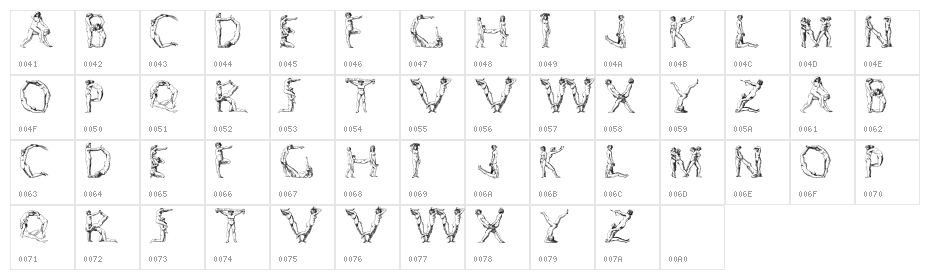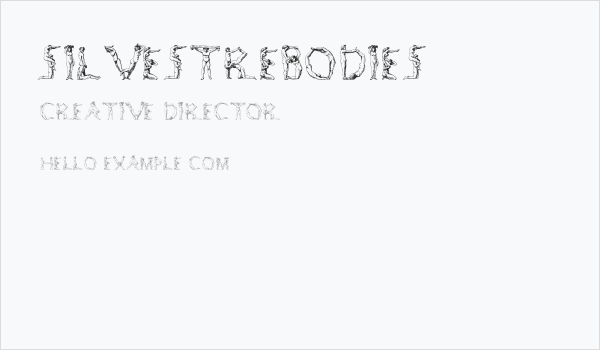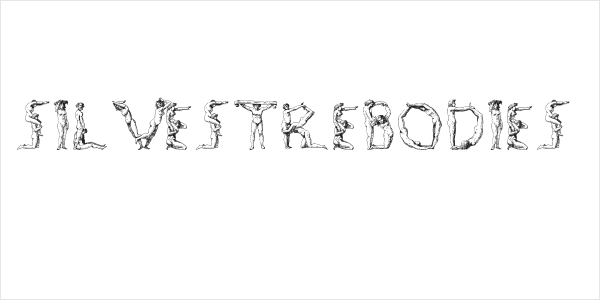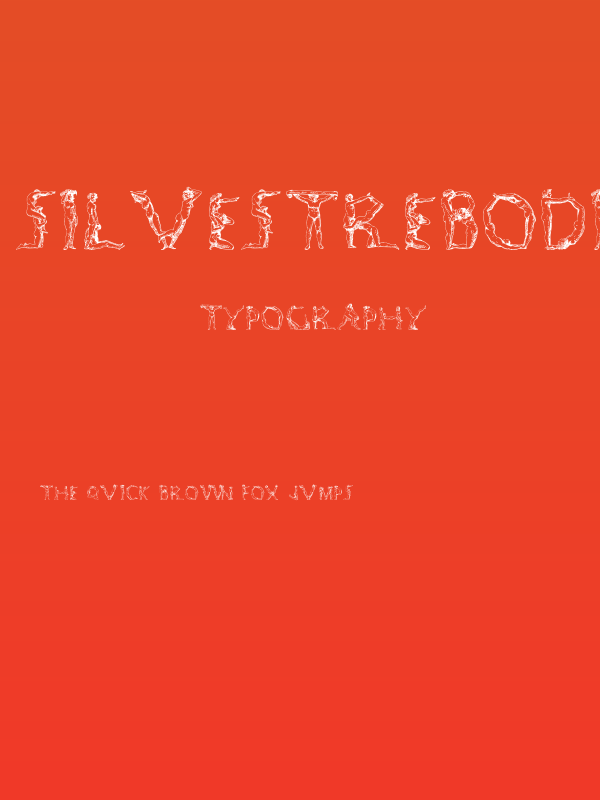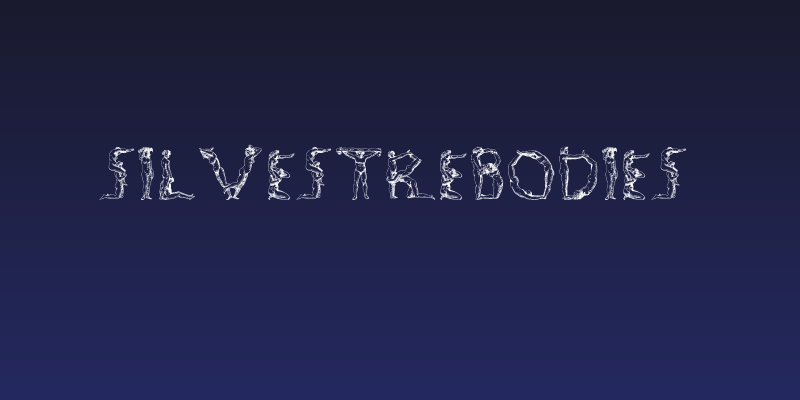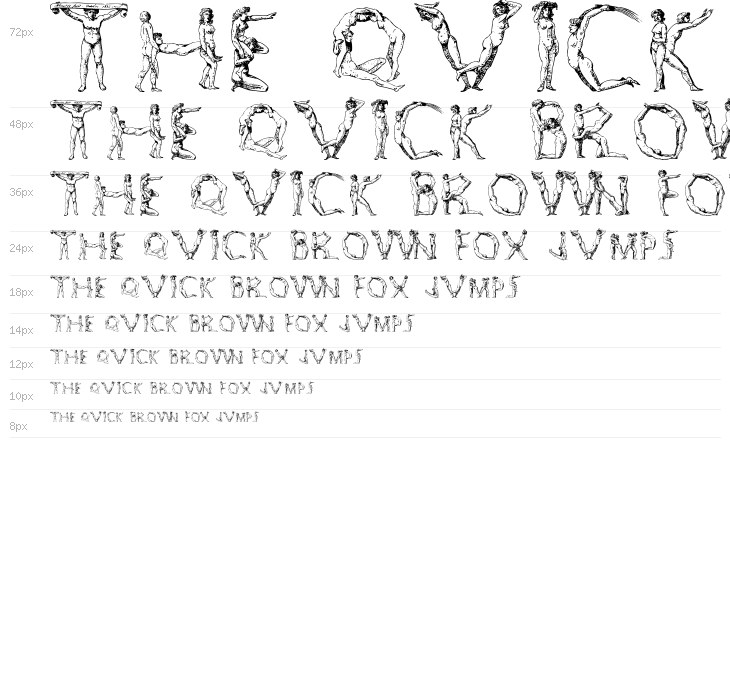
SilvestreBodies Font
SilvestreBodies Description
This unique and artistic font is crafted using human figures to form each letter. The design is highly creative, with each character composed of detailed illustrations of people in various poses. The font captures a sense of movement and dynamism, making it visually striking and engaging. It is not a traditional typeface but rather a decorative and expressive form of lettering that stands out due to its originality and complexity. The intricate details in each letter add a layer of depth and interest, making it suitable for artistic and creative projects.
| Overall Style | Artistic, Creative |
| Use Case | Logos, Posters, Artistic Projects |
| Proposed Projects | Ideal for artistic projects, creative posters, unique branding, and any design work that benefits from a distinctive and eye-catching typeface. |